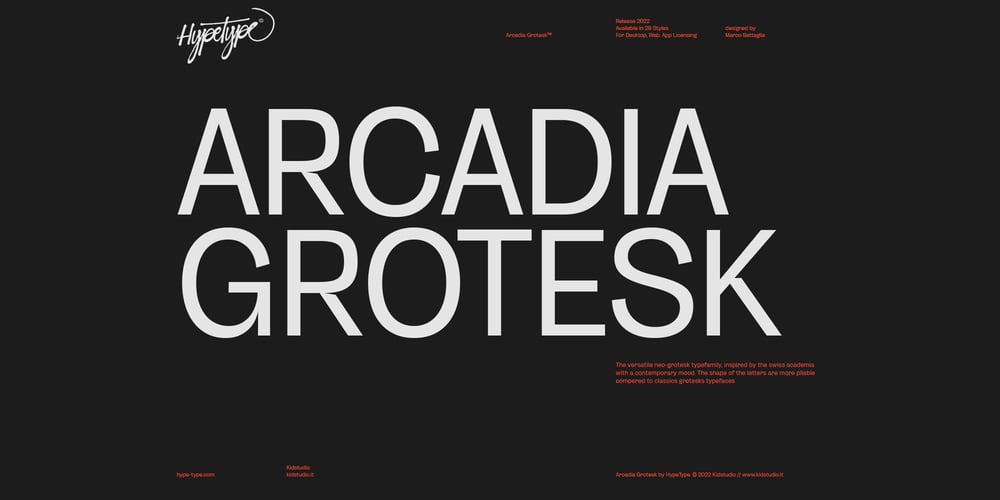
HT Arcadia Grotesk Expanded Font Family was designed by Marco Battaglia, Marco Innocenti and published by Hype Type. HT Arcadia Grotesk Expanded contains 14 styles and family package options. The versatile neo-grotesk typefamily, inspired by the swiss academia with a contemporary mood. The shape of the letters are more pliable compered to classic grotesk typefaces. The Expanded series enlarges horizons… and type!–Taking inspirations from classic grotesk letterforms, both from the European tradition (specifically the Swiss school) and the American tradition, HypeType’s Arcadia Grotesk is modernized with its shorter ascenders and descenders to give more compact blocks of text and with more contemporary and dynamic forms.–hype-type.com // kidstudio.it